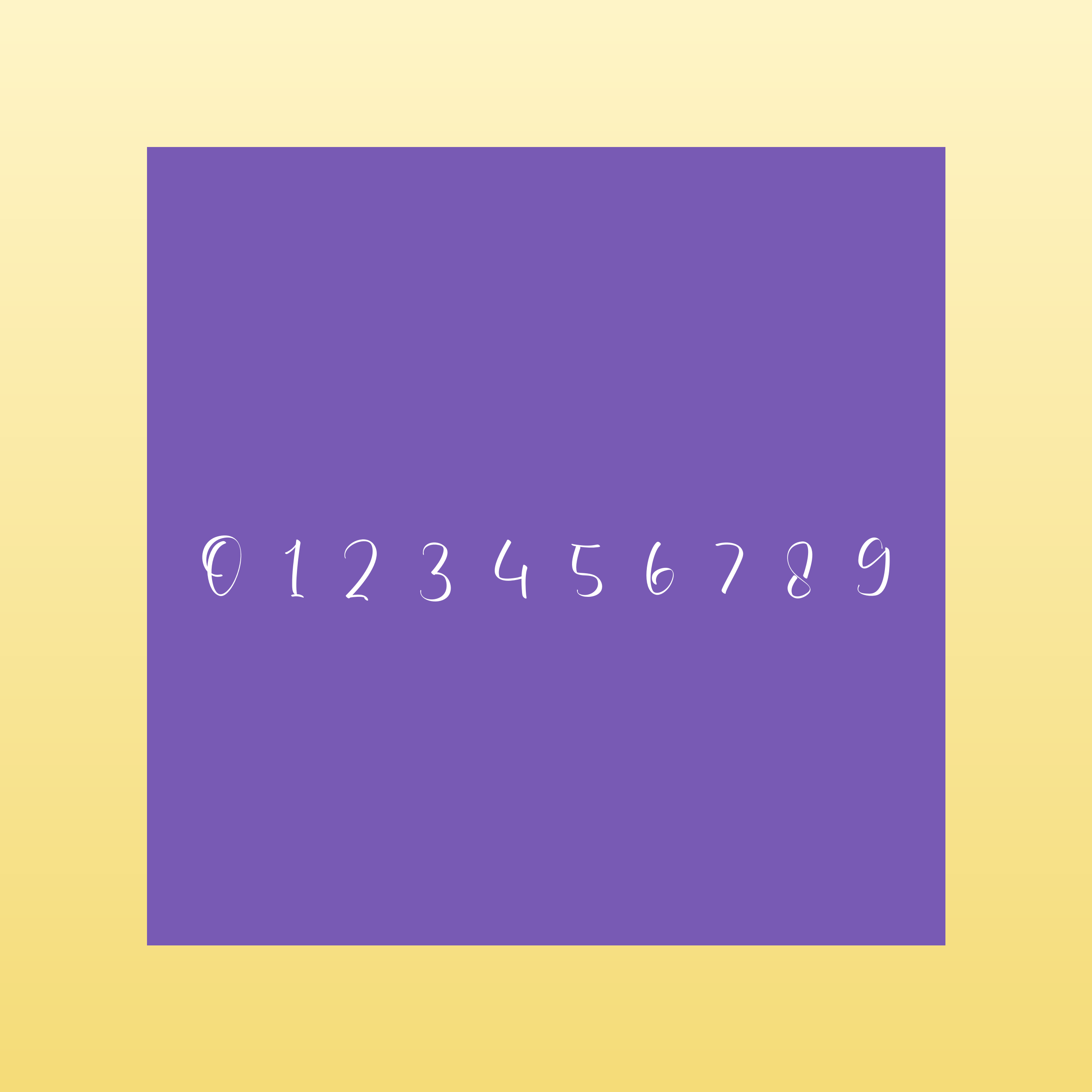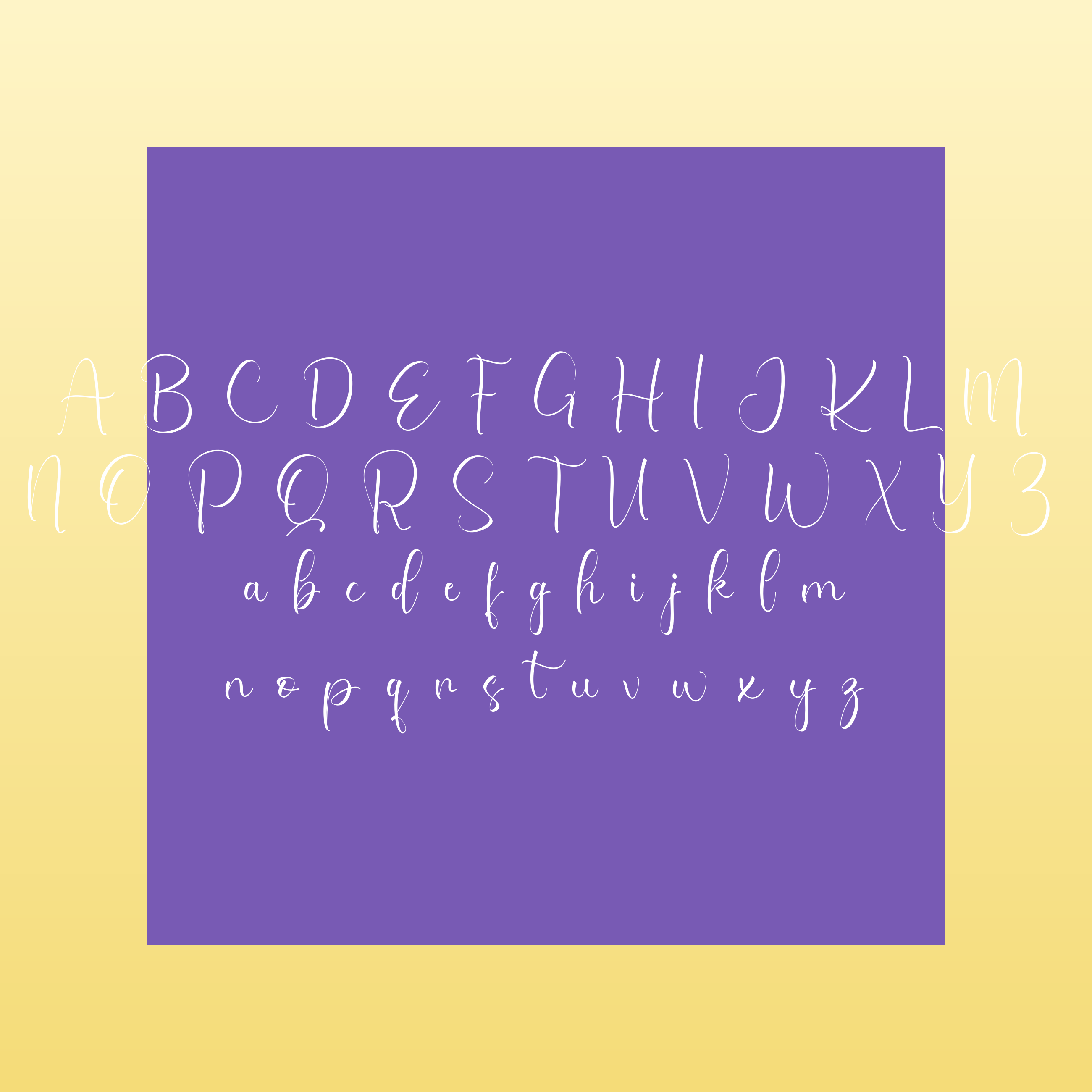
Bridget Bold Script Font | Cricut Font | Handwritten Logo & Creative Branding Font
Bridget is a bold and playful handwritten script font designed to stand out. With thick, confident strokes and a friendly style, it’s perfect for Cricut projects, branding, apparel, and creative designs.
💛 Bold, eye-catching lettering
💛 Easy to read and cut
💛 Perfect for fun, modern projects